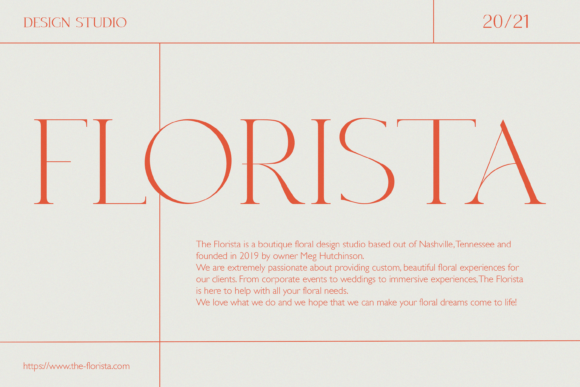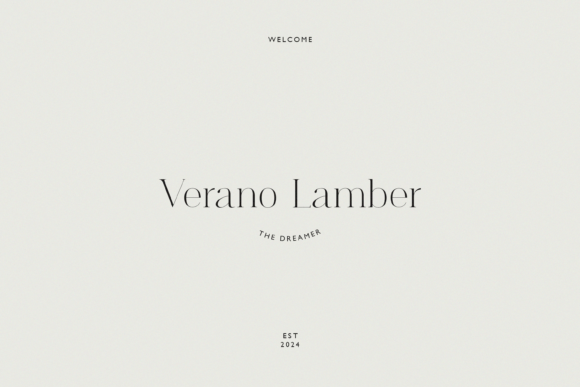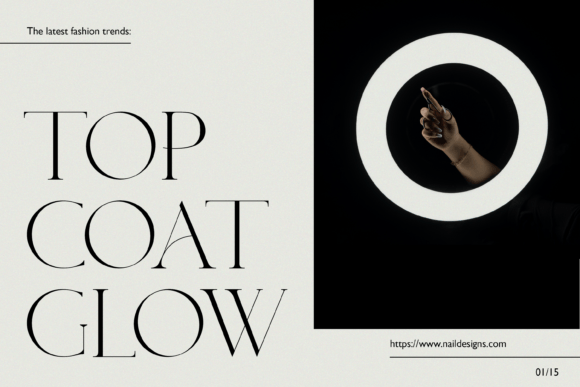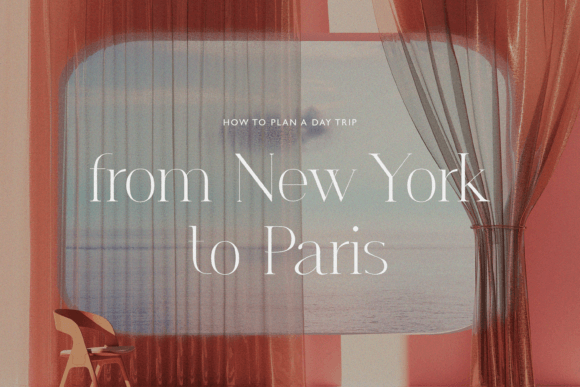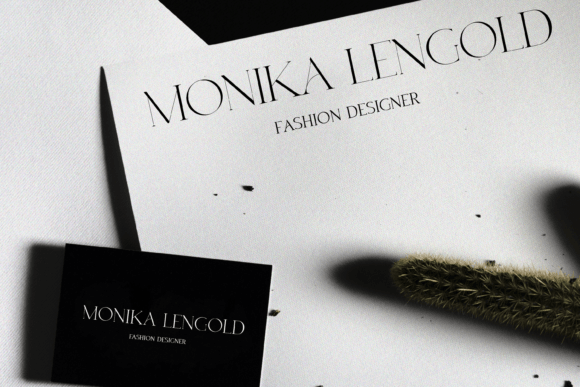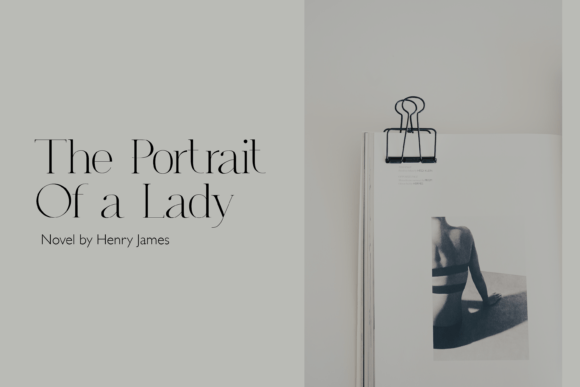
The Elusive Perfect Font: My Journey with Afterglow
Ah, the quest for the perfect font. We’ve all been there – stuck in the midst of a design project, scrambling to find that one typeface that will elevate our work from meh to mesmerizing. I recall a particularly frustrating experience with a client who wanted an elegant, high-end look for their luxury brand. I sifted through countless fonts, but none seemed to capture the essence of sophistication and style… until I stumbled upon Afterglow.
First Impressions: A Timeless Elegance
AfterGlow is a stylish and timeless font that effortlessly blends elegance with a touch of fashion-forward flair. Perfect for invitations, logos, or any branding project, this classic font adds a refined and sophisticated touch to your designs. Whether you’re a designer, crafter, or creative hobbyist, Afterglow’s versatile charm makes it an ideal choice for those seeking a tasteful and enduring aesthetic.
- ✅ Elegant and refined aesthetic, perfect for luxury brands and high-end designs
- ✅ Highly versatile, suitable for various design projects, from invitations to logos
- ✅ Easy to read, even at smaller font sizes
- ✅ Beautifully crafted, with attention to detail and a clear focus on typographic excellence
- ⚠️ Limited availability of condensed or extended versions, which might limit its use in certain design contexts
- ⚠️ Some users may find the font too ornate or elaborate for very casual or playful designs
The Story Behind Afterglow: Designer Inspiration
Imagine a designer who spent years perfecting the art of typography, traveling the world to study the most beautiful and elegant fonts. This designer, inspired by the glamour of old Hollywood and the sophistication of European fashion, created Afterglow as a tribute to timeless elegance. With a focus on craftsmanship and attention to detail, Afterglow was born – a font that embodies the essence of luxury and refinement.
Q: What makes Afterglow suitable for luxury brands?
A: Afterglow’s elegant and refined aesthetic, combined with its versatility and attention to detail, make it an ideal choice for luxury brands seeking a sophisticated and high-end look.
Q: Can I use Afterglow for body text?
A: While Afterglow is beautiful for titles and headings, it may not be the best choice for body text due to its ornate and elegant nature. Consider pairing it with a simpler font for body text.
Q: Is Afterglow suitable for digital designs?
A: Yes, Afterglow can be used for digital designs, such as websites, social media graphics, and email templates. Its elegant and refined aesthetic translates well to digital platforms.